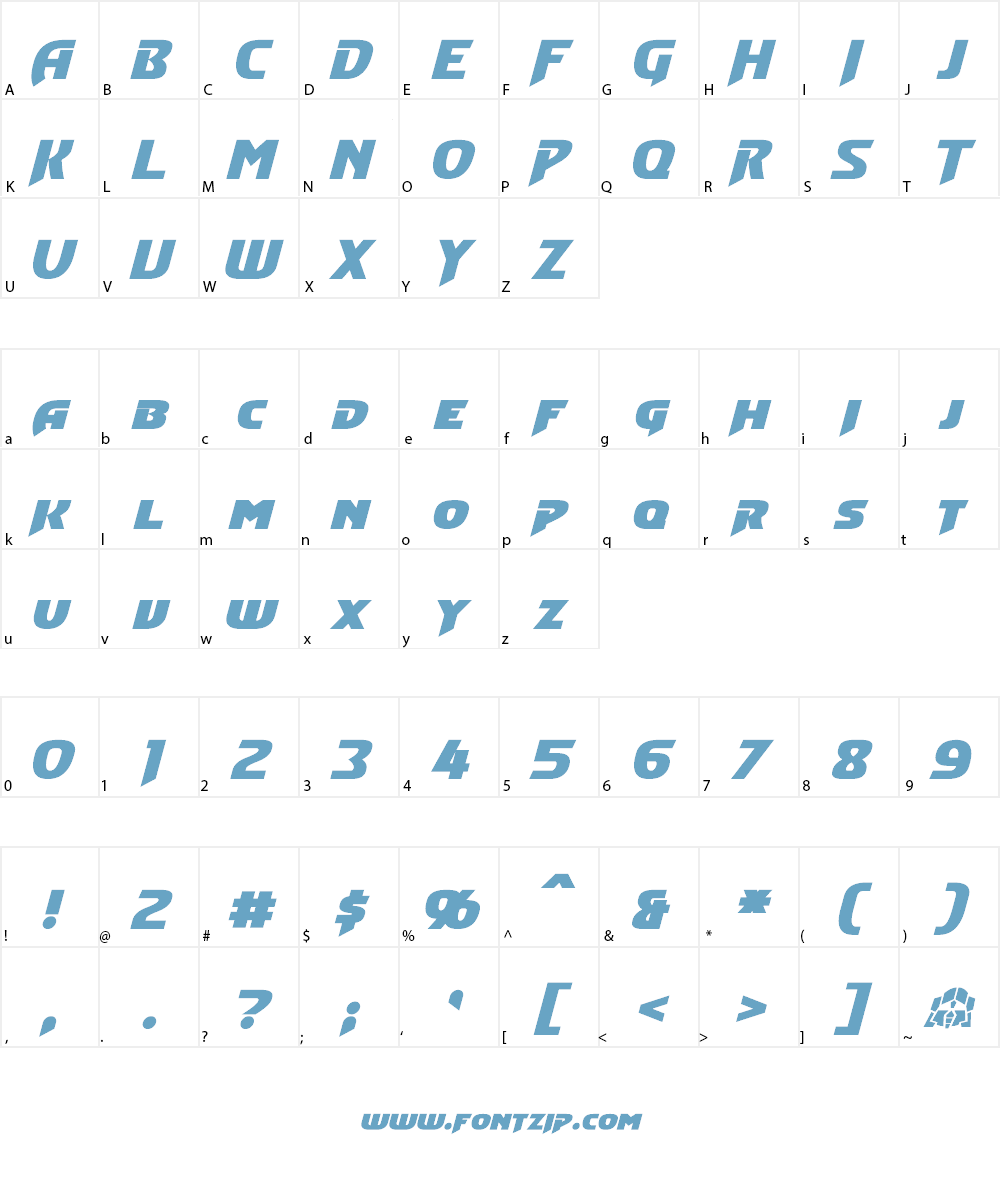
Based on the logos for "Transformers: Armada" and "Transformers: Robots in Disguise" from Hasbro, Inc. Left and right braces replaced with Autobot and Decepticon insignia, respectively. Bar replaced with Minicon insignia. Tilde replaced with Combatron insignia. Includes regular and italic versions.